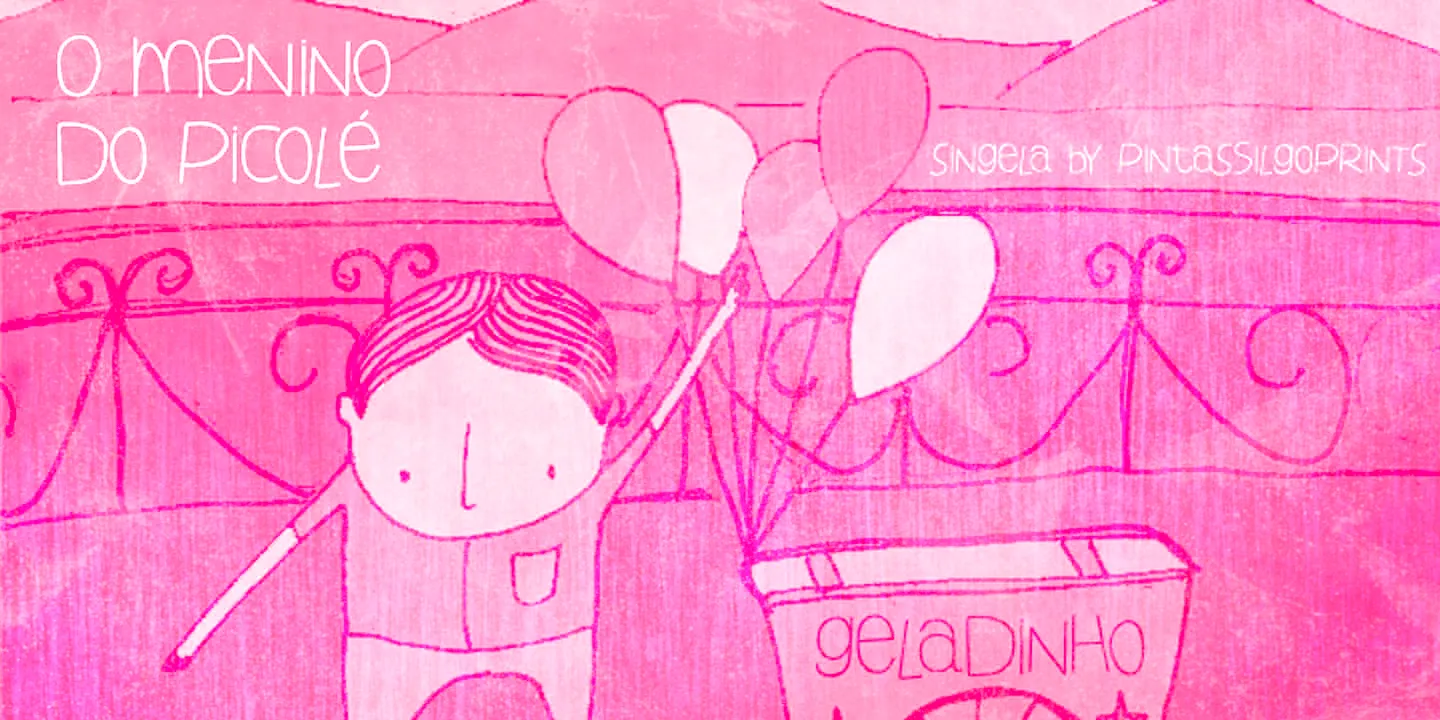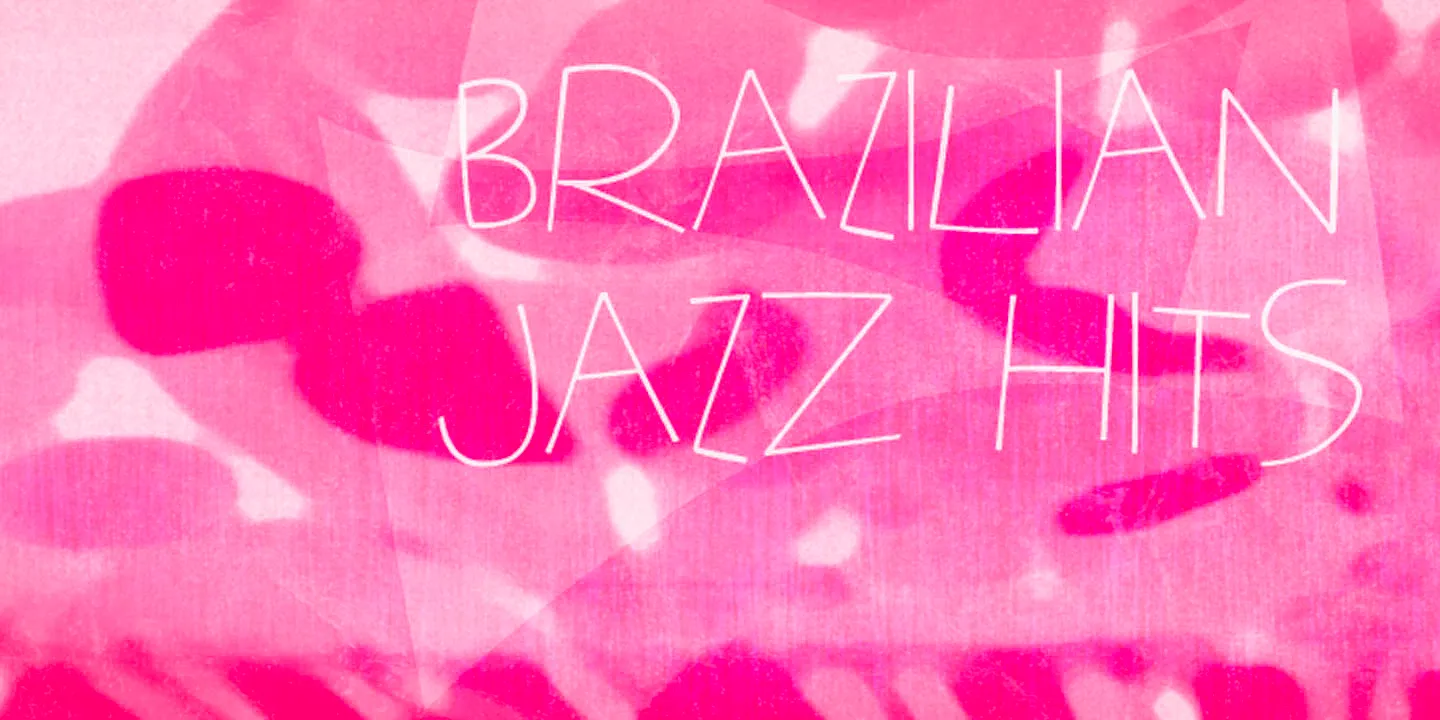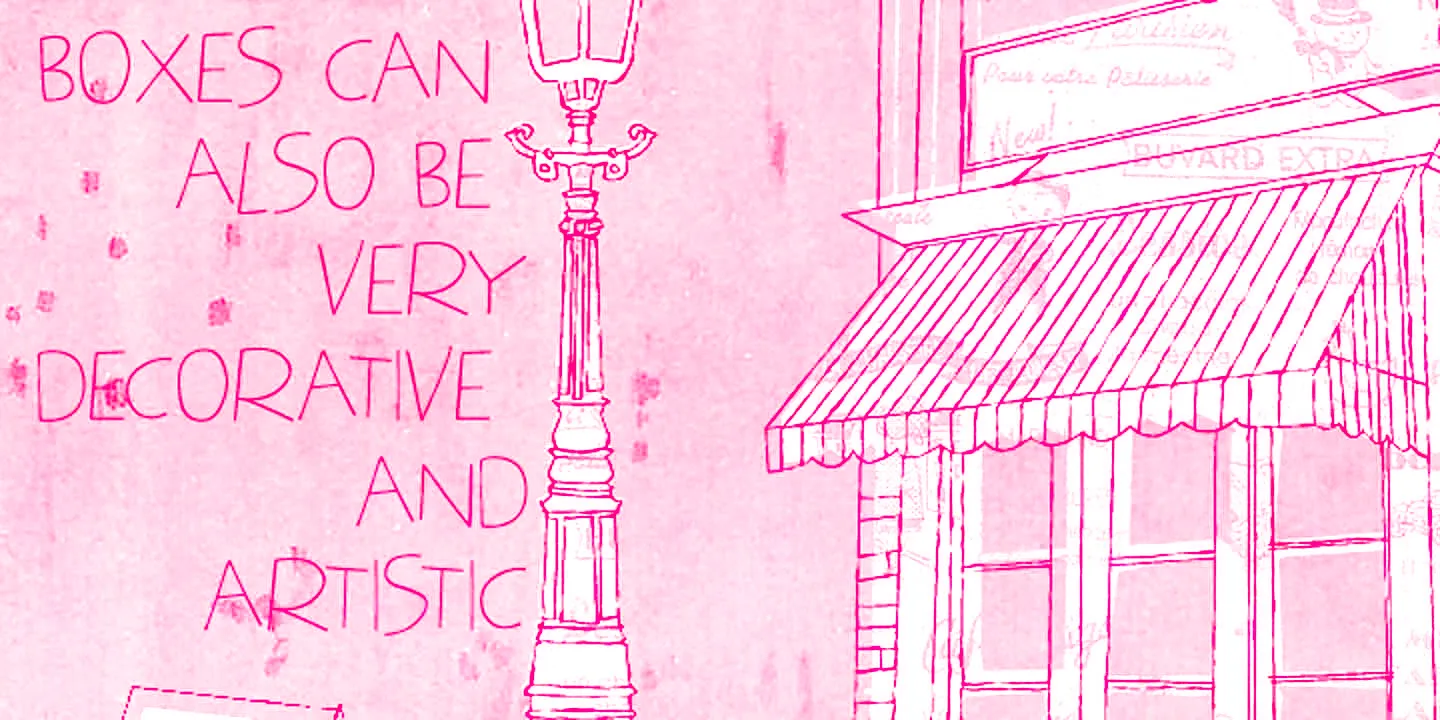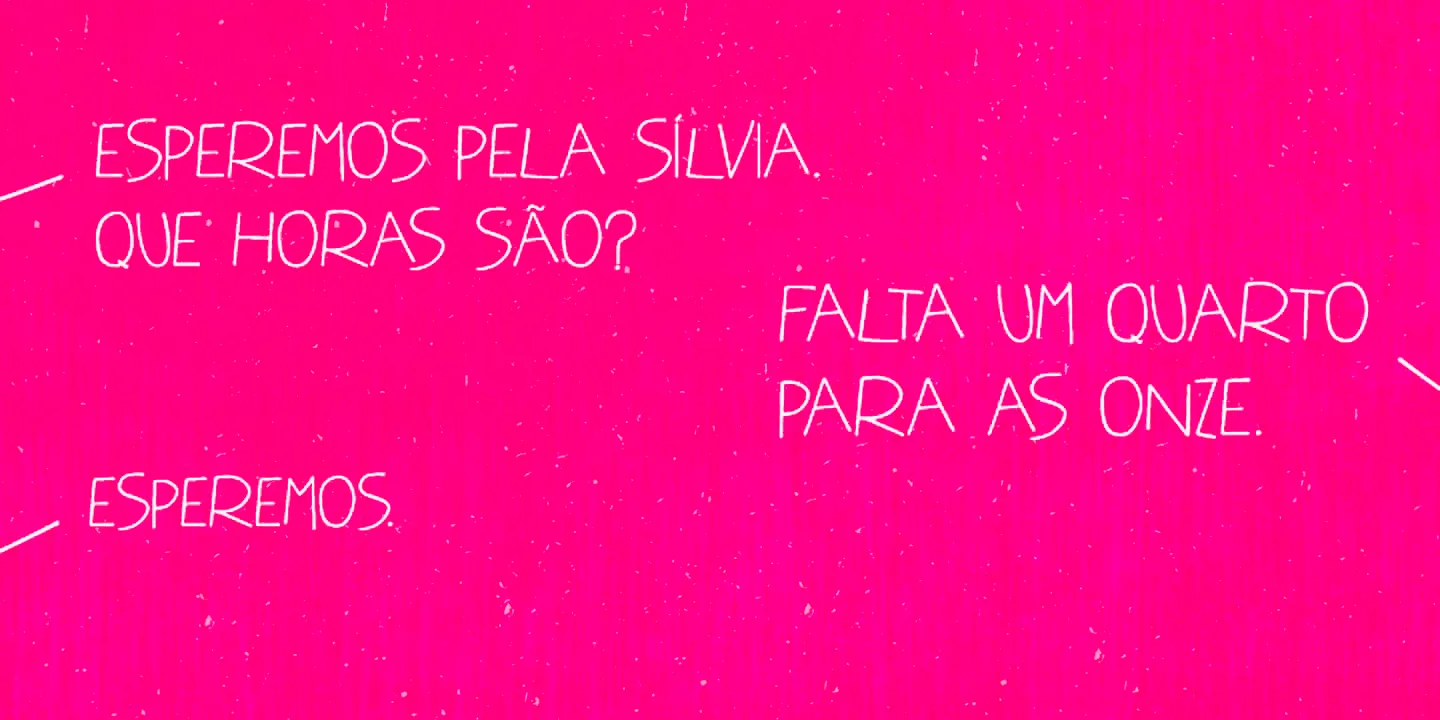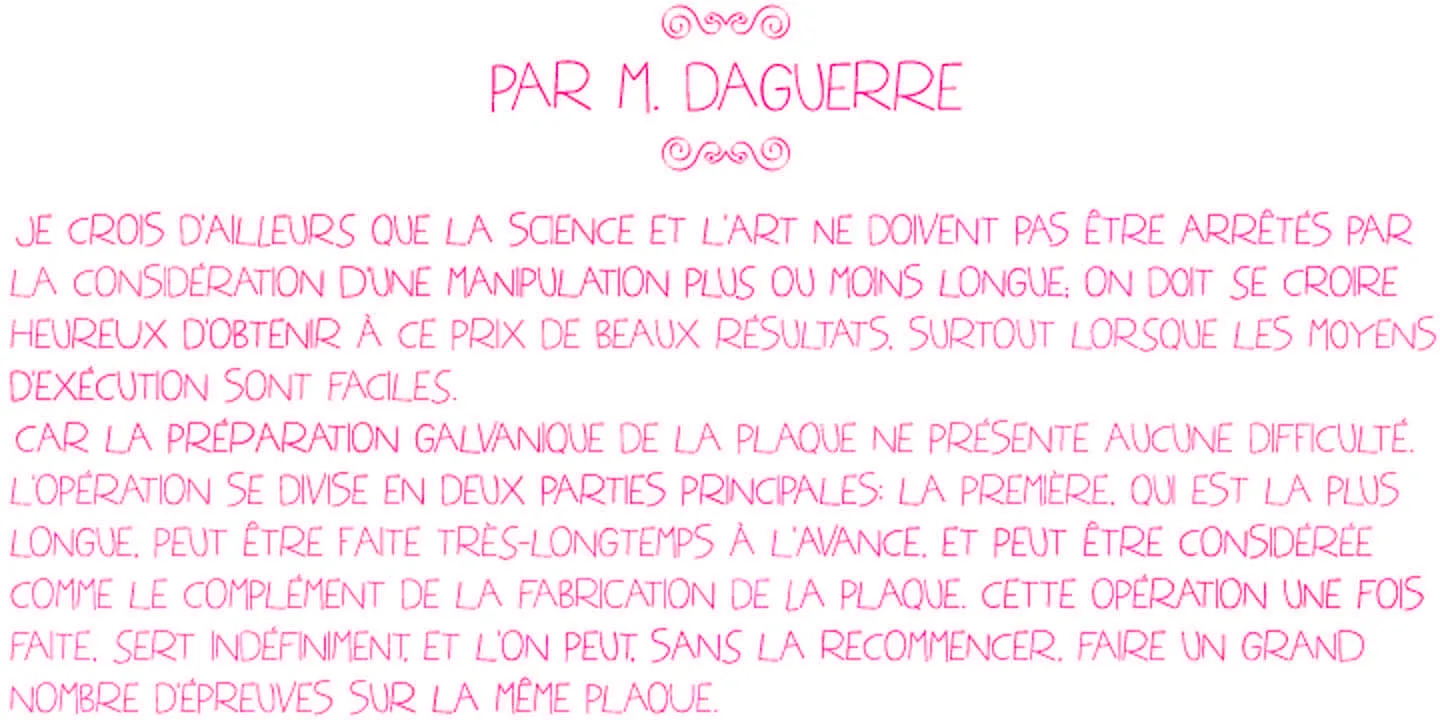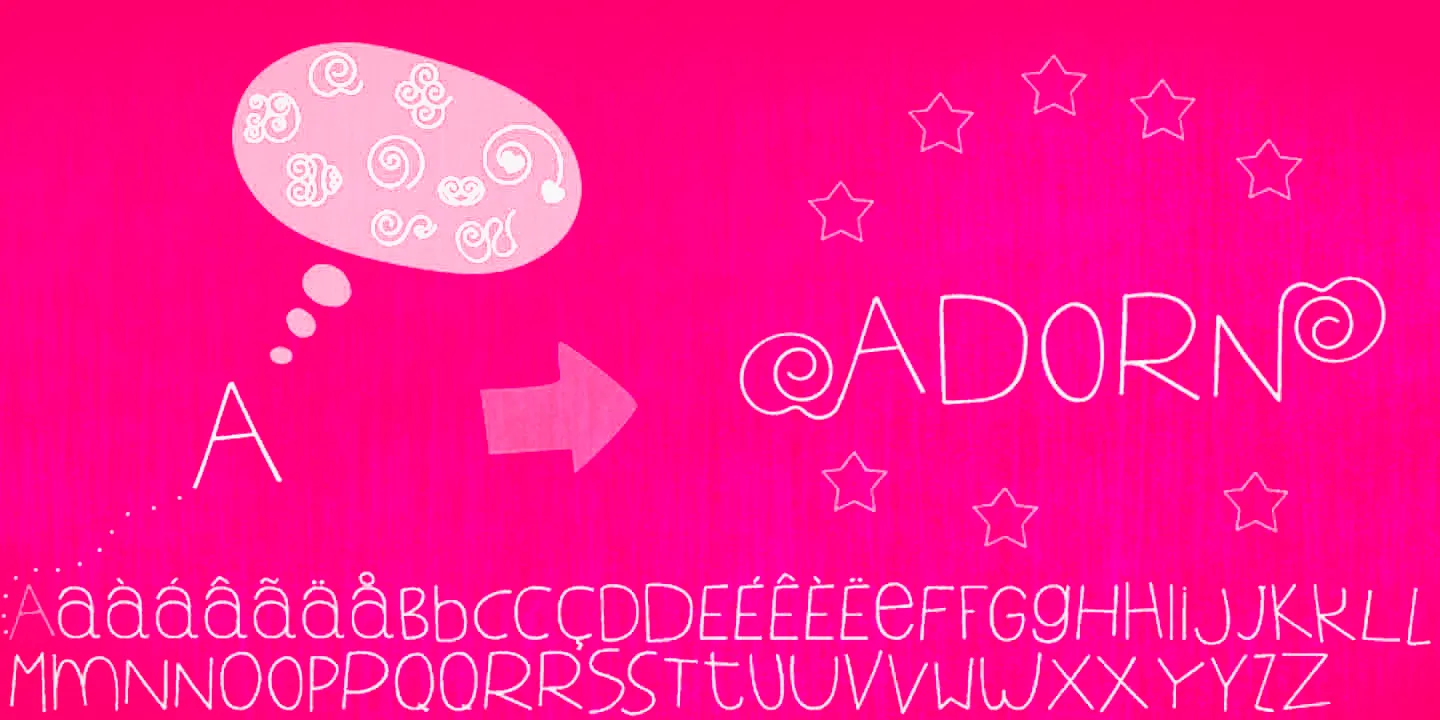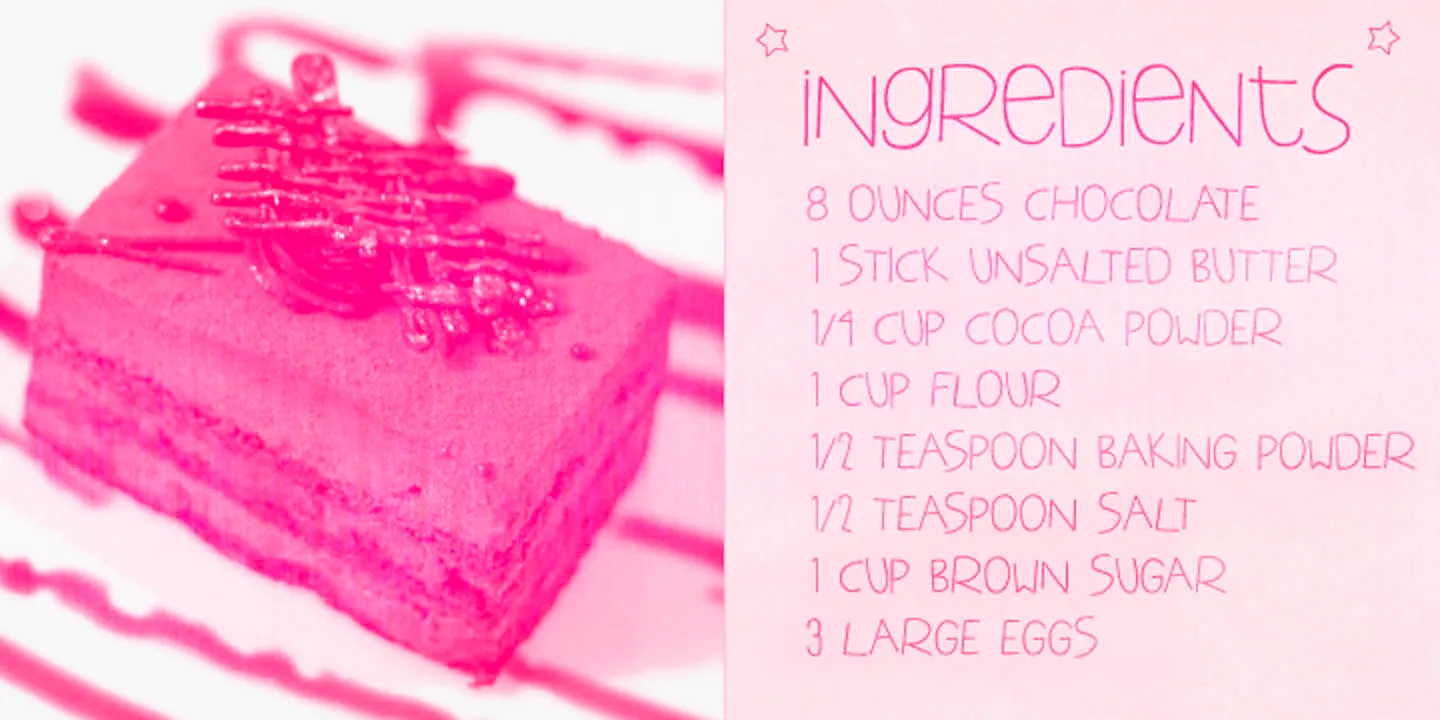
Singela Fonts
Singela
Singela is a lively and good-humored handwritten typeface with a twist. By all appearances, you could even say it is a quick-drawn sans serif. It has two weights and an additional font with a handful of other extras for added versatility. We can imagine a packaging designer using this on food packaging and a publication art director putting it to good use in any number of children’s books. The applications are really endless. Have fun!